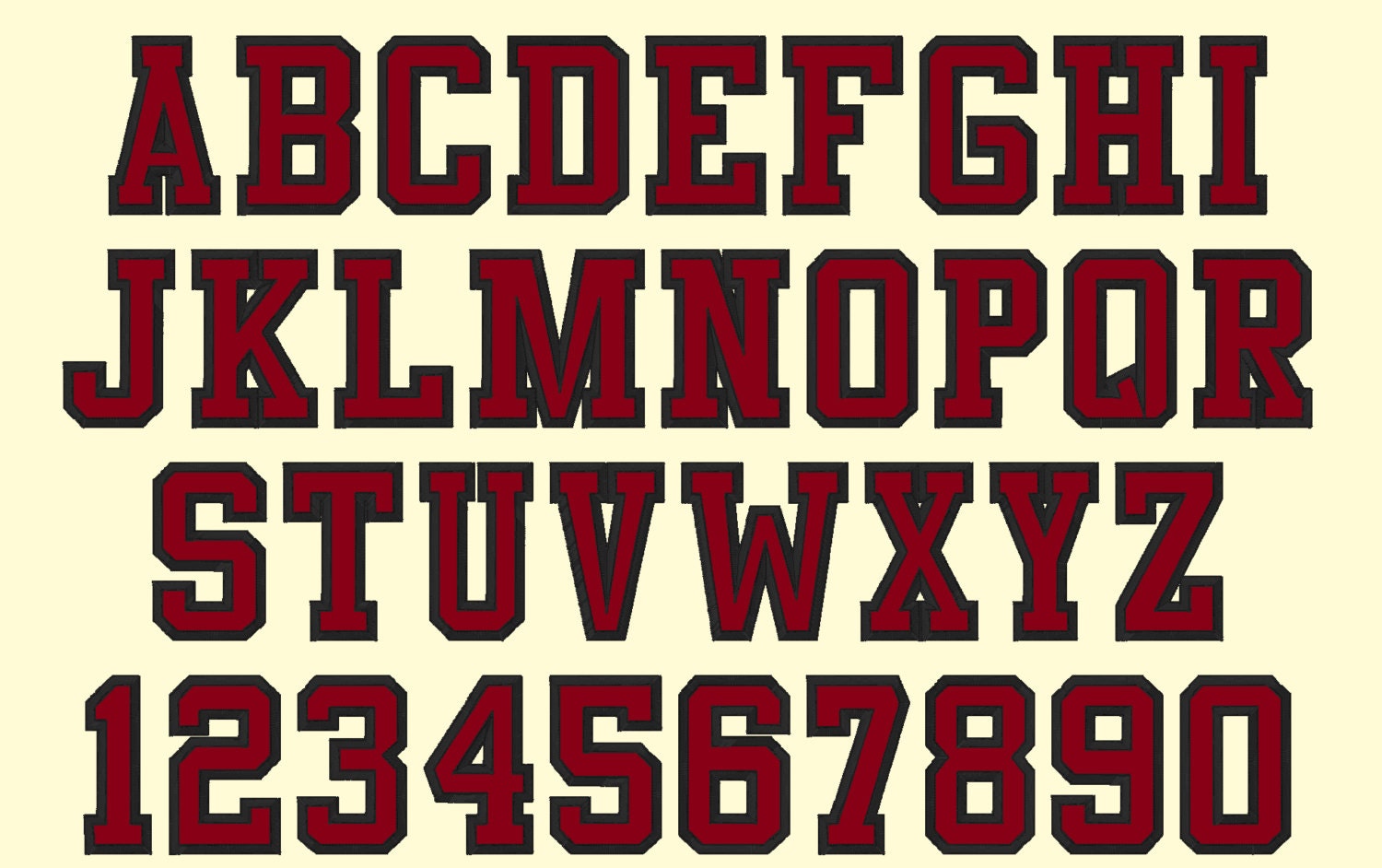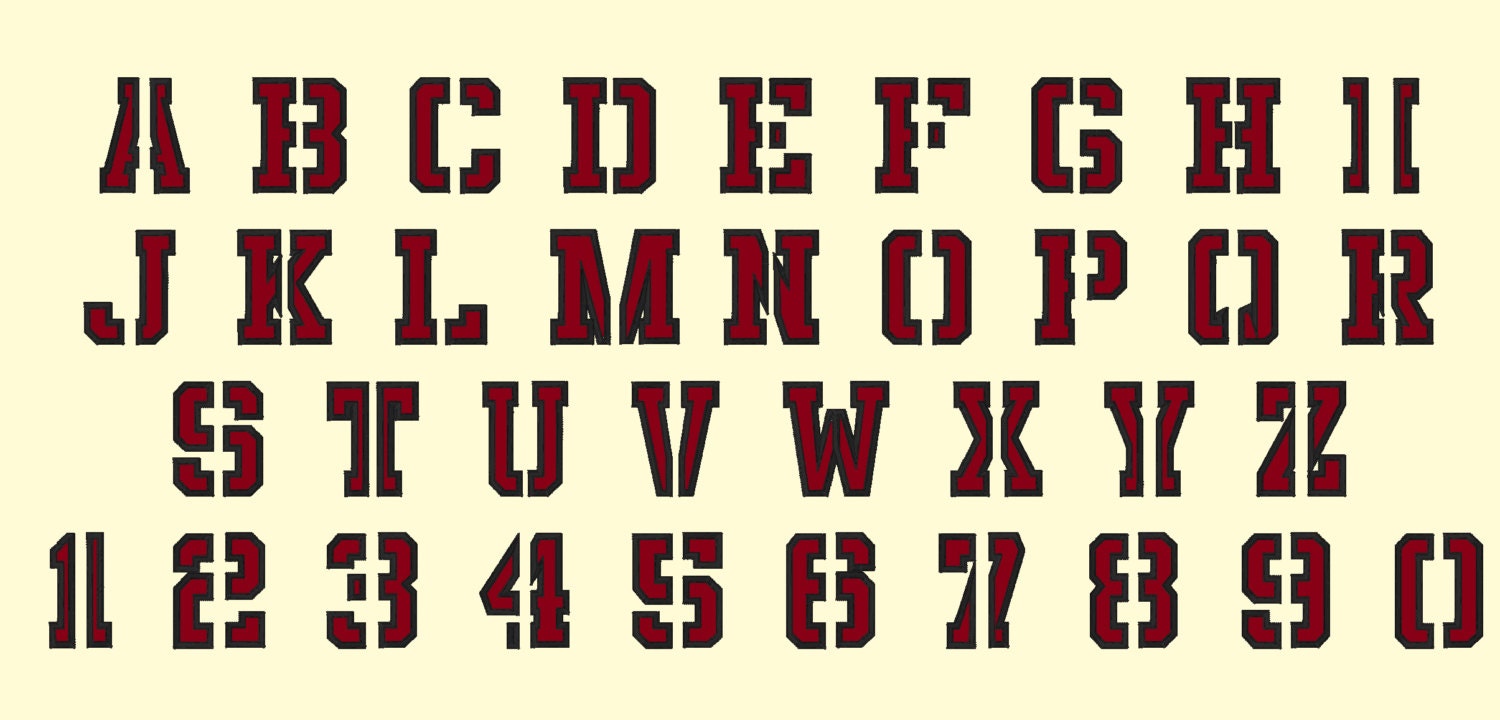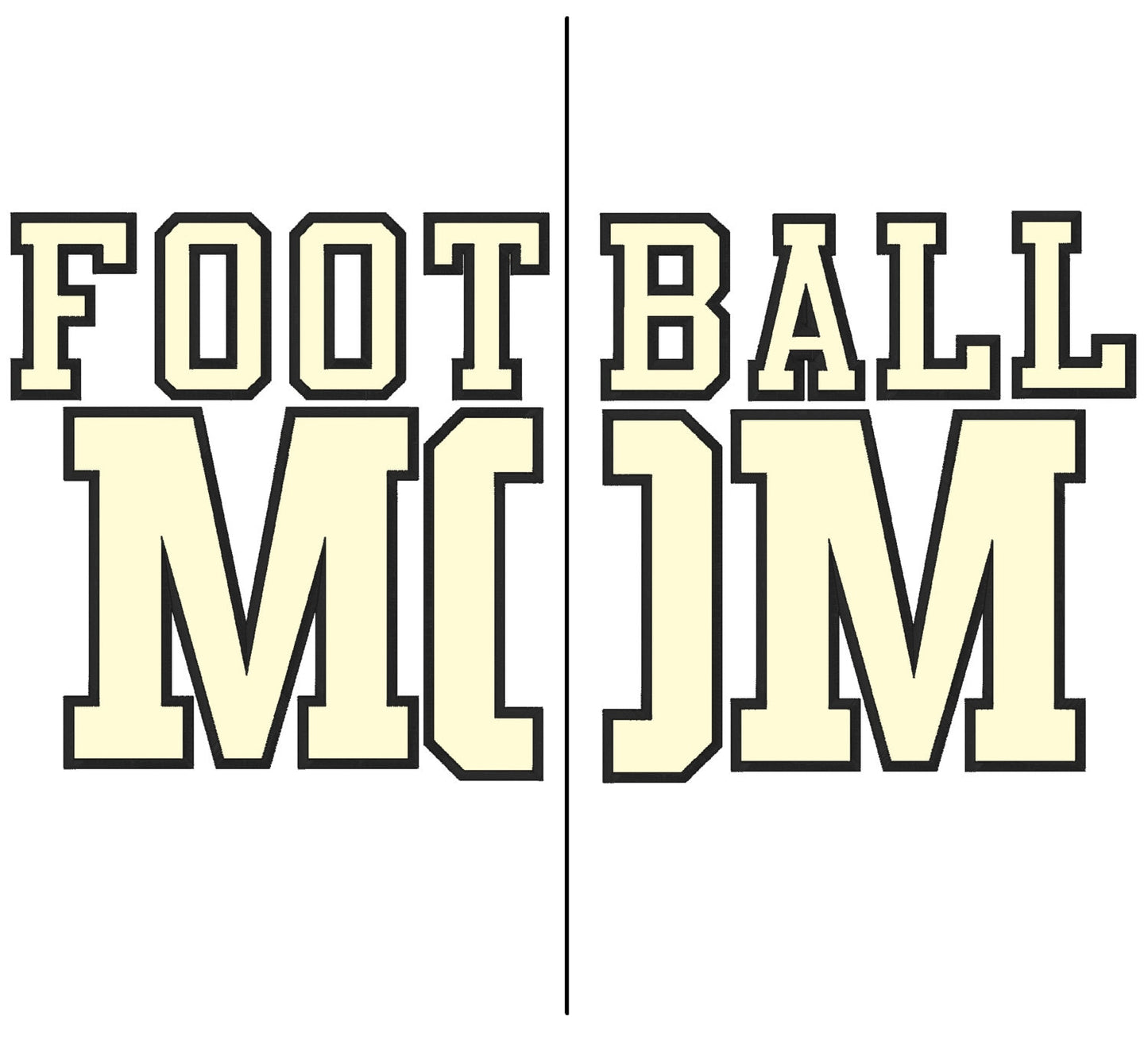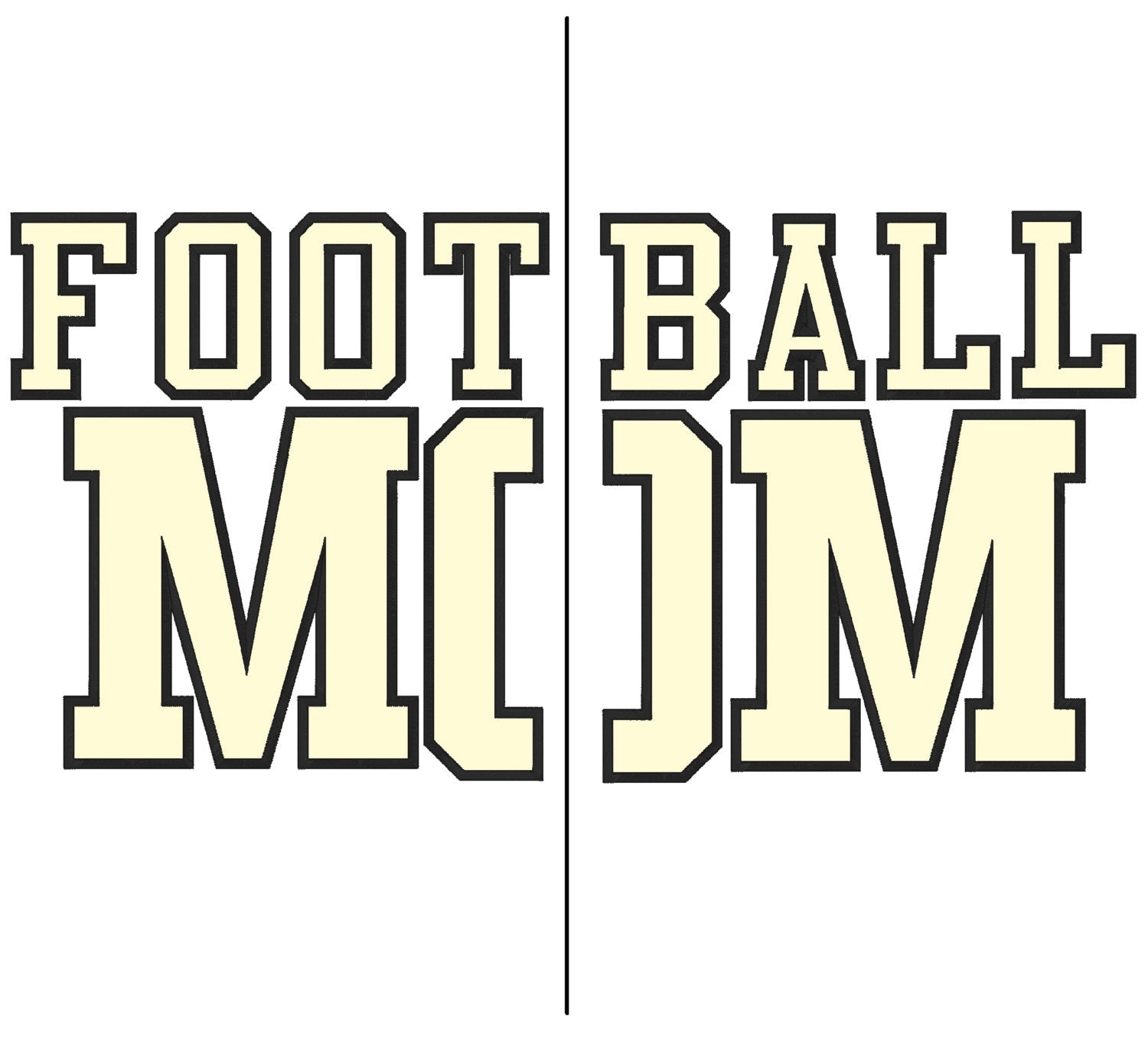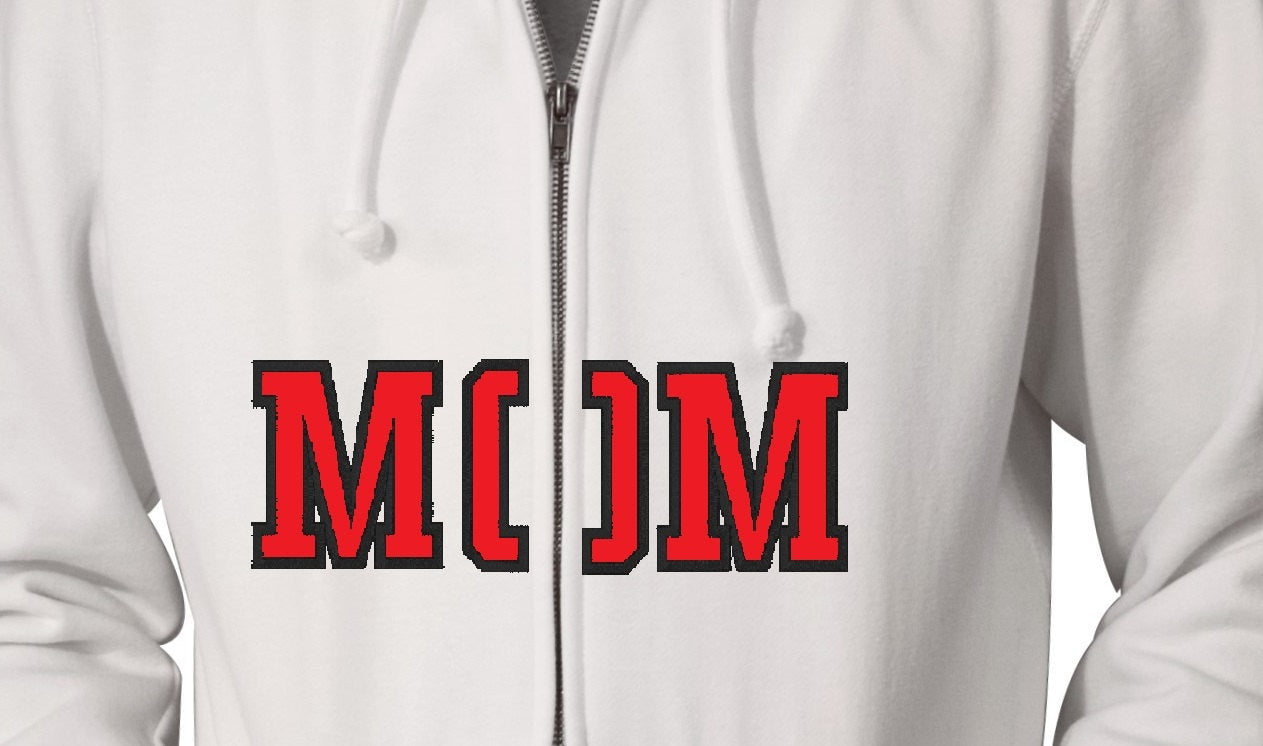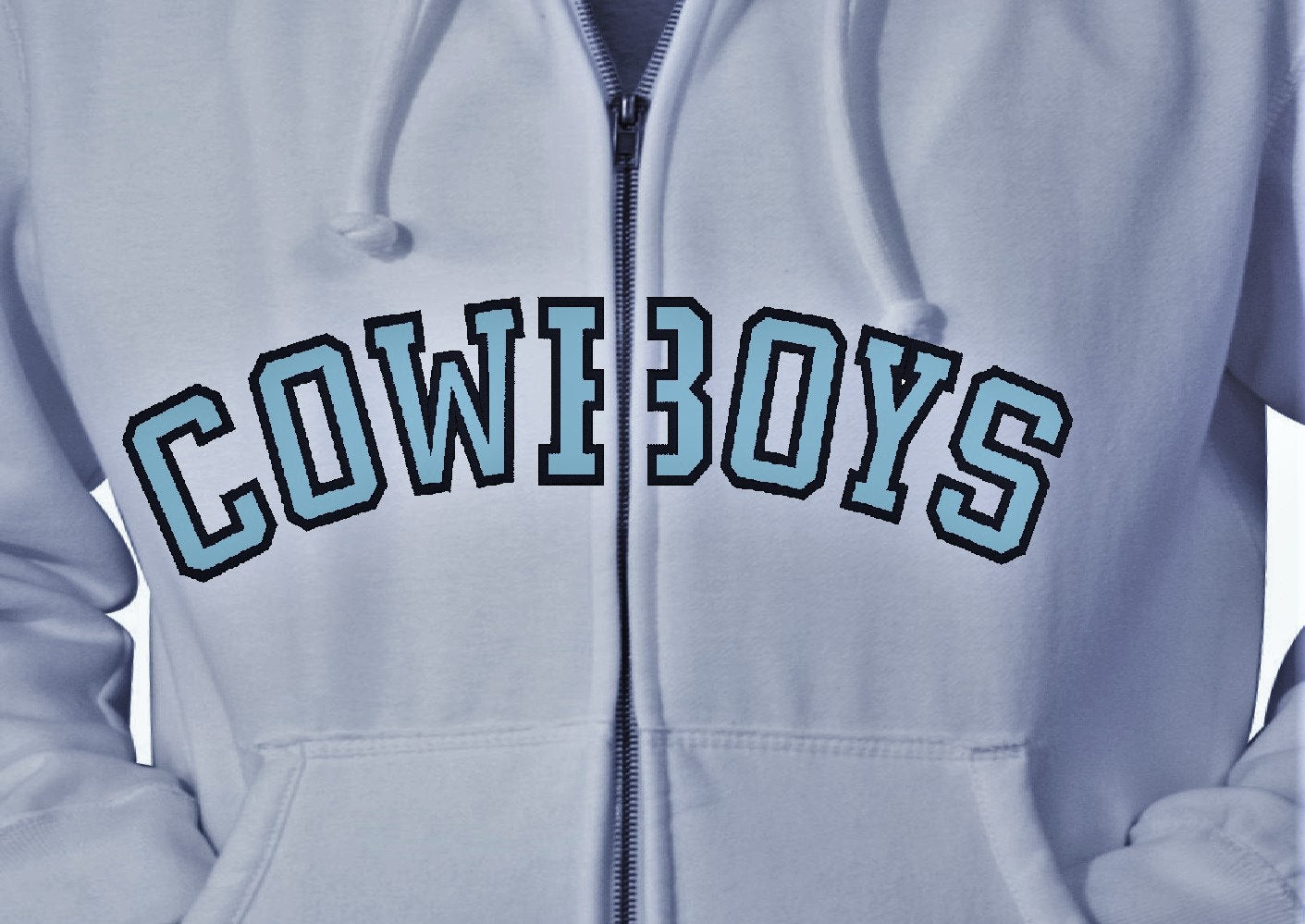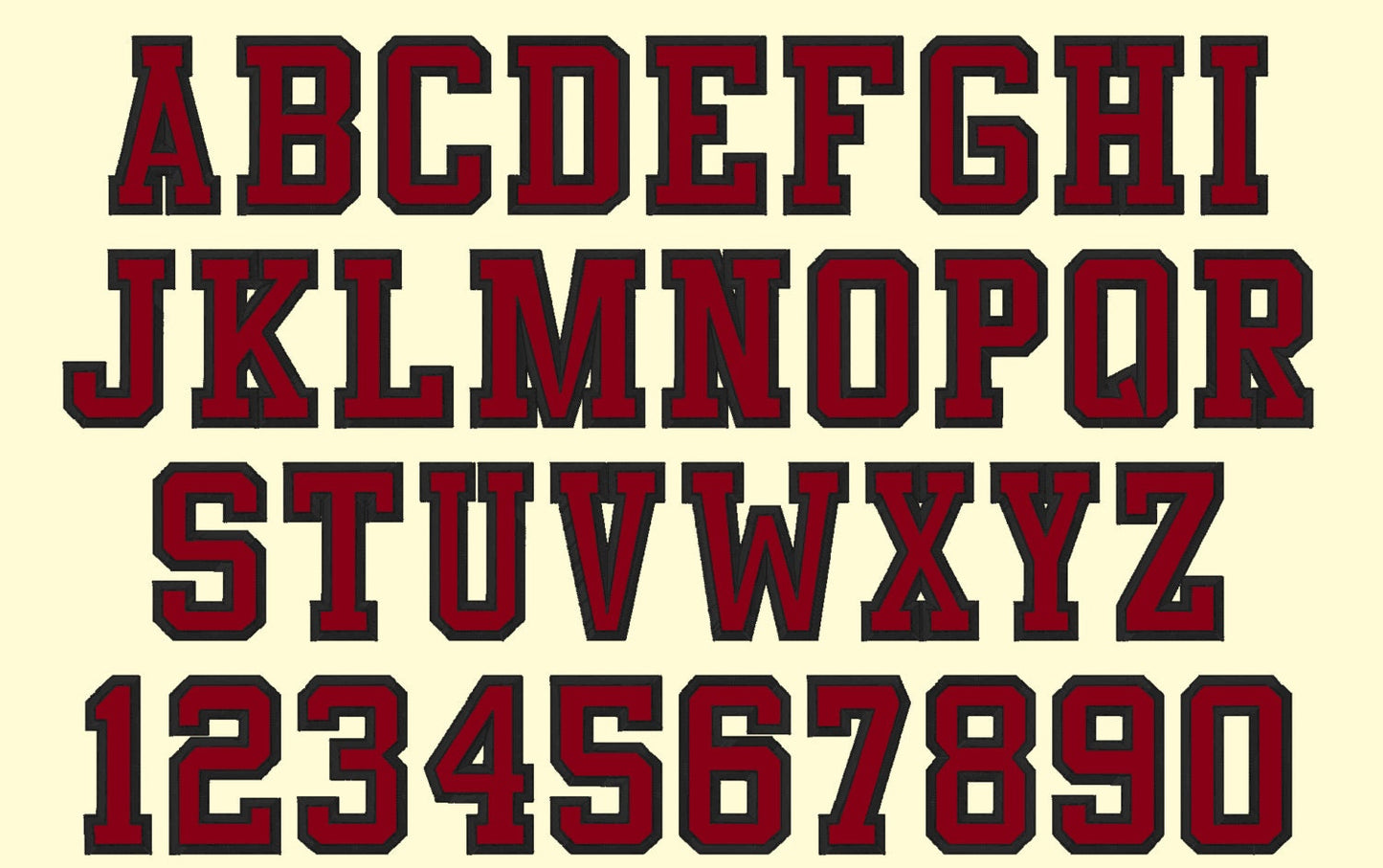
Or click to open the linkA varsity collegiate applique font with a vertical split option. Made for team hoodies, jackets, jerseys and school spirit shirts.
Two sets: whole letters, and letters split vertically into left and right halves to stitch on both sides of a zip. Uppercase A to Z and numbers 0 to 9 in four sizes: 3, 4, 5 and 6 inches. Wide satin edge with a white top stitch for a neat look.